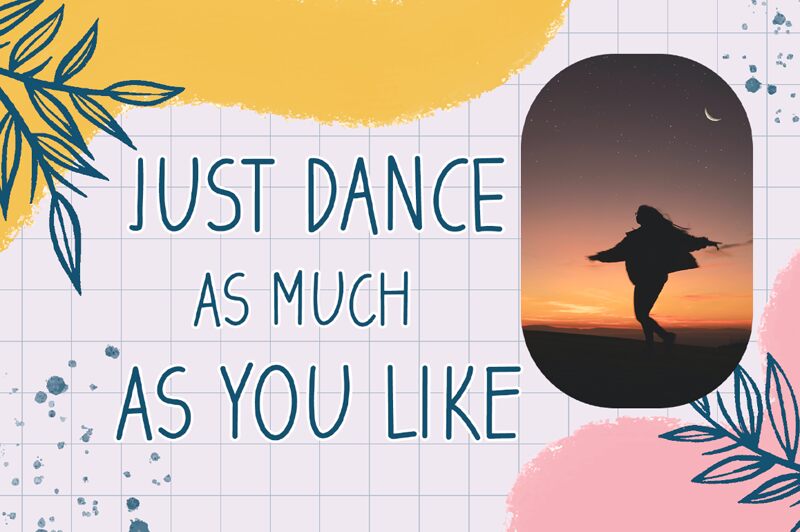
Freedom font is a lovely handwritten font designed by Muhammad Hisyam Rivai of Phantom Creative Studio.
This font was created By Phantom Creative Studio (Hisyam) From Bandung - Indonesia .